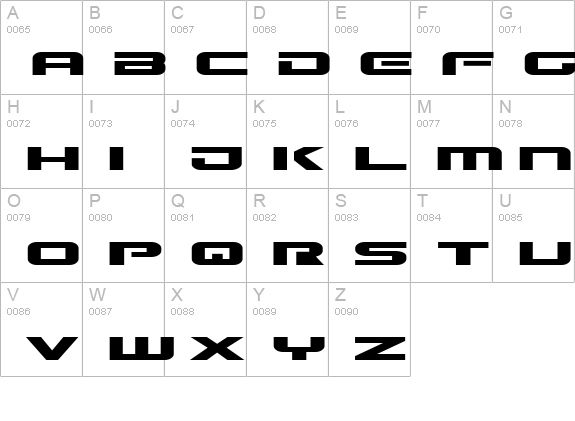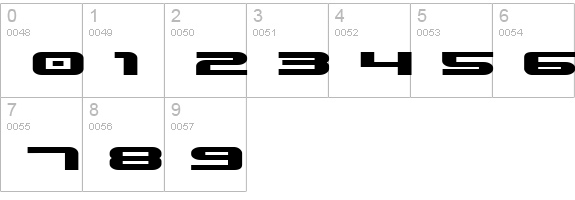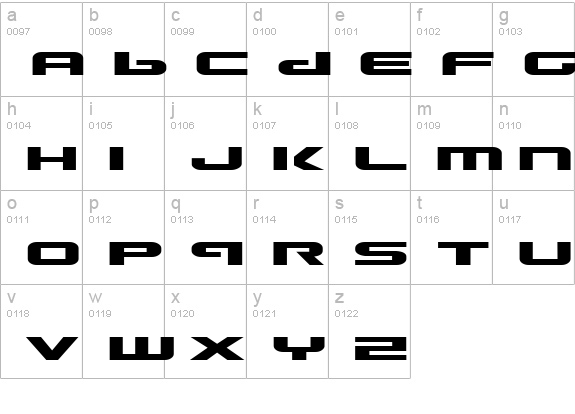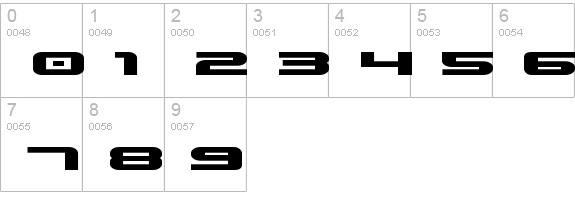
Gunship Expanded is a distinctive, extended-width variant in the Gunship typeface family \xE2\x80\x94 well suited to design and typography projects.
Gunship Expanded is a bold and rugged display font that exudes power and strength. With its sharp edges and futuristic design, this font is perfect for making a bold statement in your designs. The expanded version adds an extra layer of impact, making your text stand out even more. What's even better is that Gunship Expanded is available for free download at FontsMarket.com. This means you can easily incorporate this eye-catching font into your projects without breaking the bank. Whether you're working on a poster, logo, or any other design project, Gunship Expanded is sure to make a powerful impression. Download it today and take your designs to new heights!